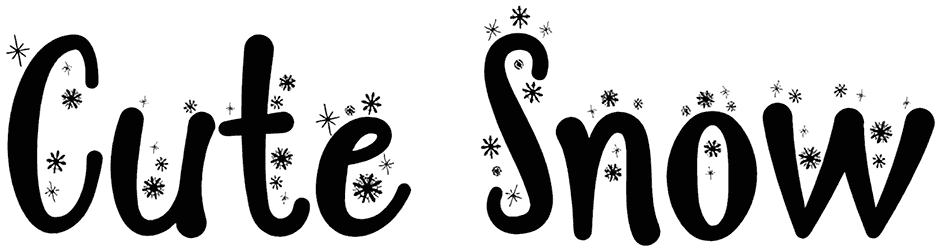
Cute Snow Font
When you look at Cute Snow, you immediately feel a moving organ that leaves a trail of snow dust. Therefore, this script font is ideally suited to the spirit of the holidays and can bring all the joy of these days to your projects.
Furthermore, the handwritten mode of this Christmas font completes its beauty and makes its lack of numbers unnoticeable. Be sure to try Cute Snow wherever you need an all-in-one font for a friendly greeting or heartfelt banner.